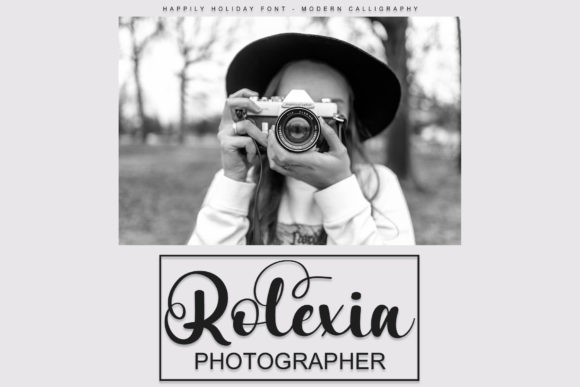
Happily Holiday Font
db-ku.com - Script & Handwritten -- Happily Holiday is a romantic and sweet calligraphy typeface with characters that dance along the baseline. Whatever the topic, this font will be a wonderful asset to your font library, as it has the potential to enhance any creation.